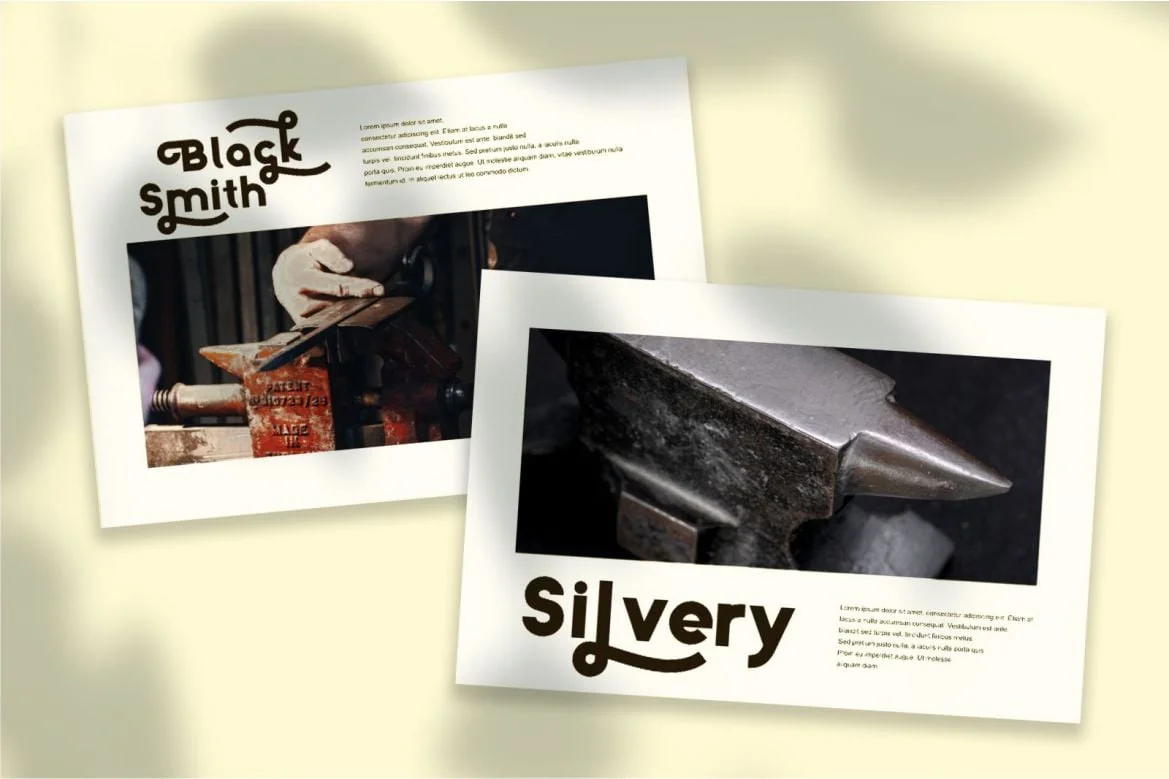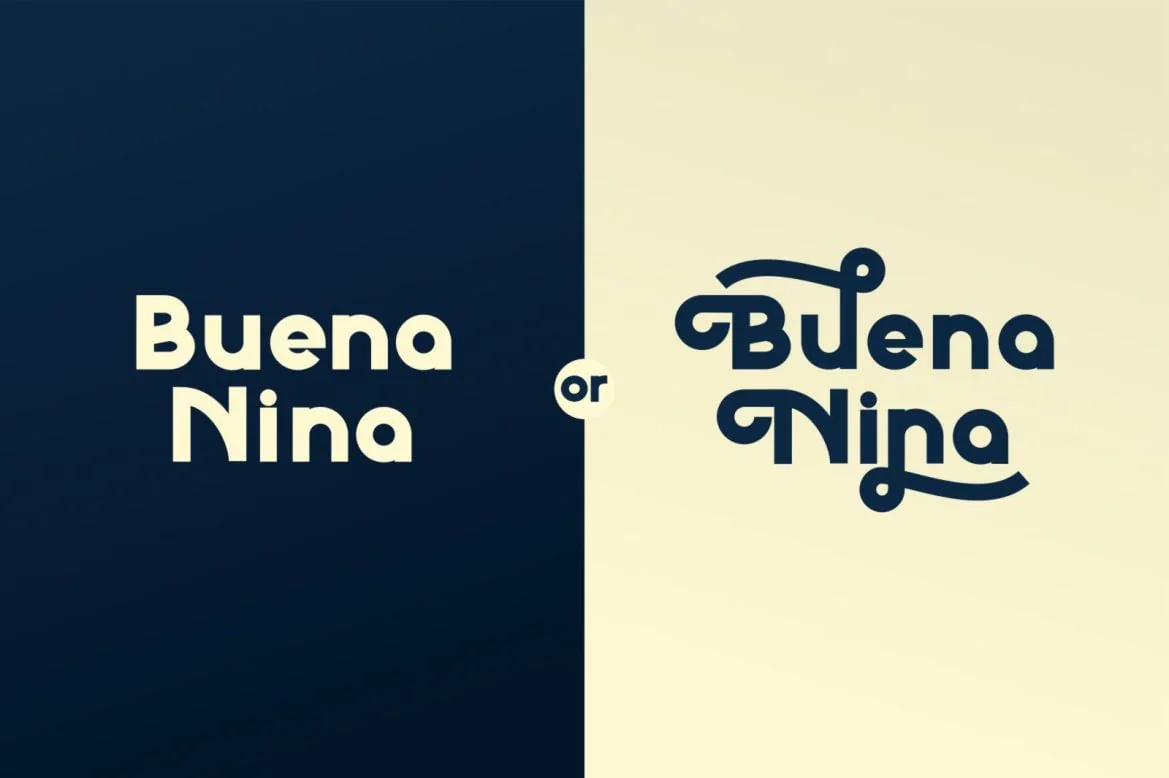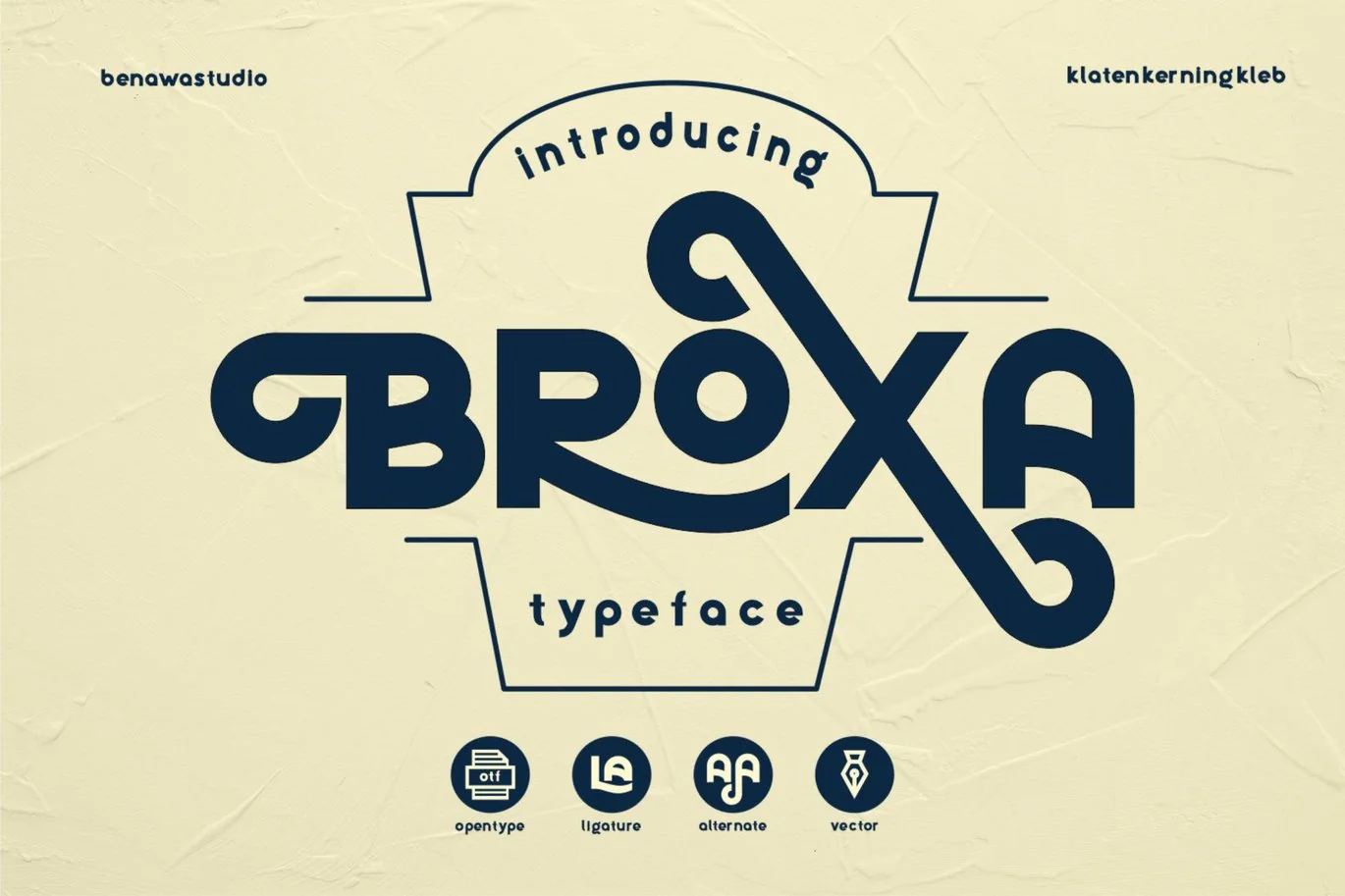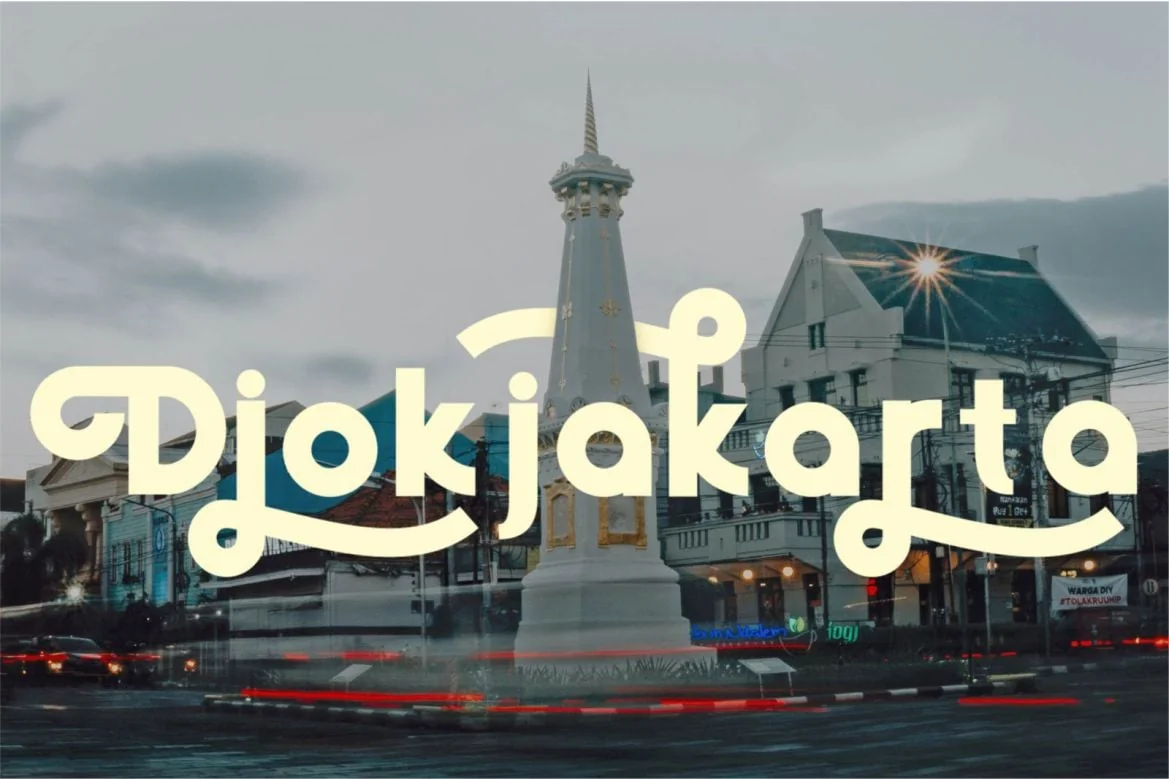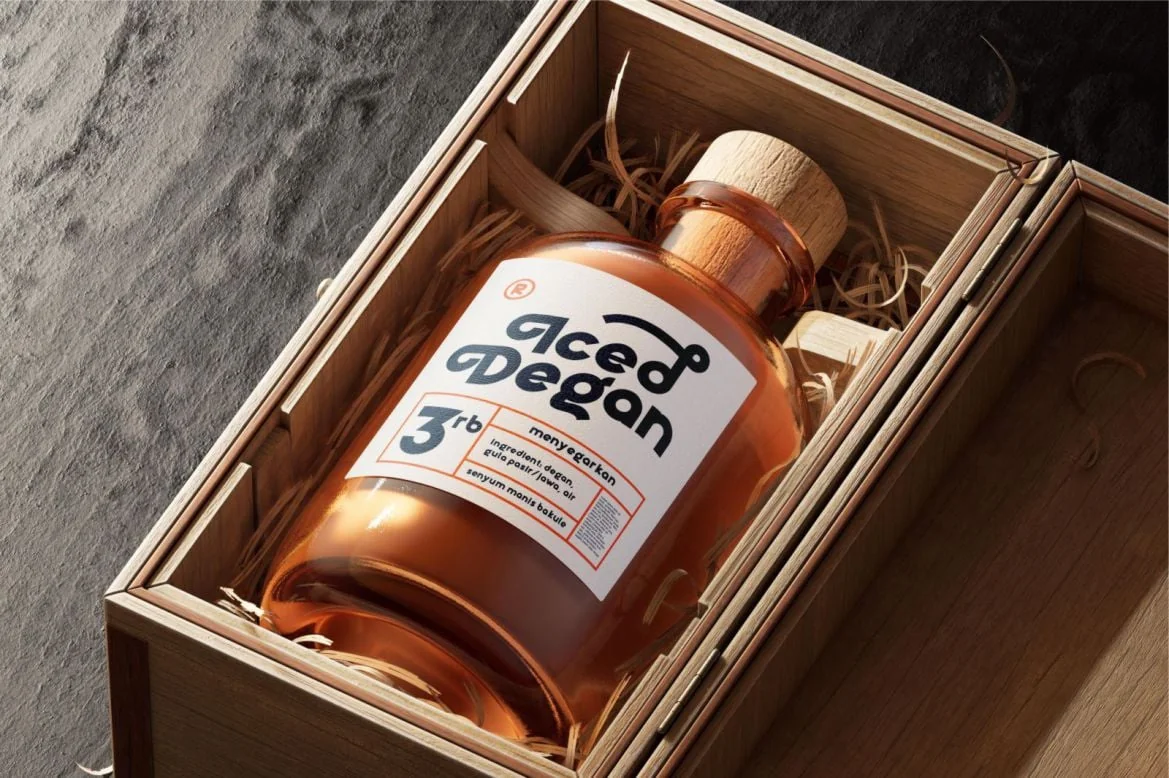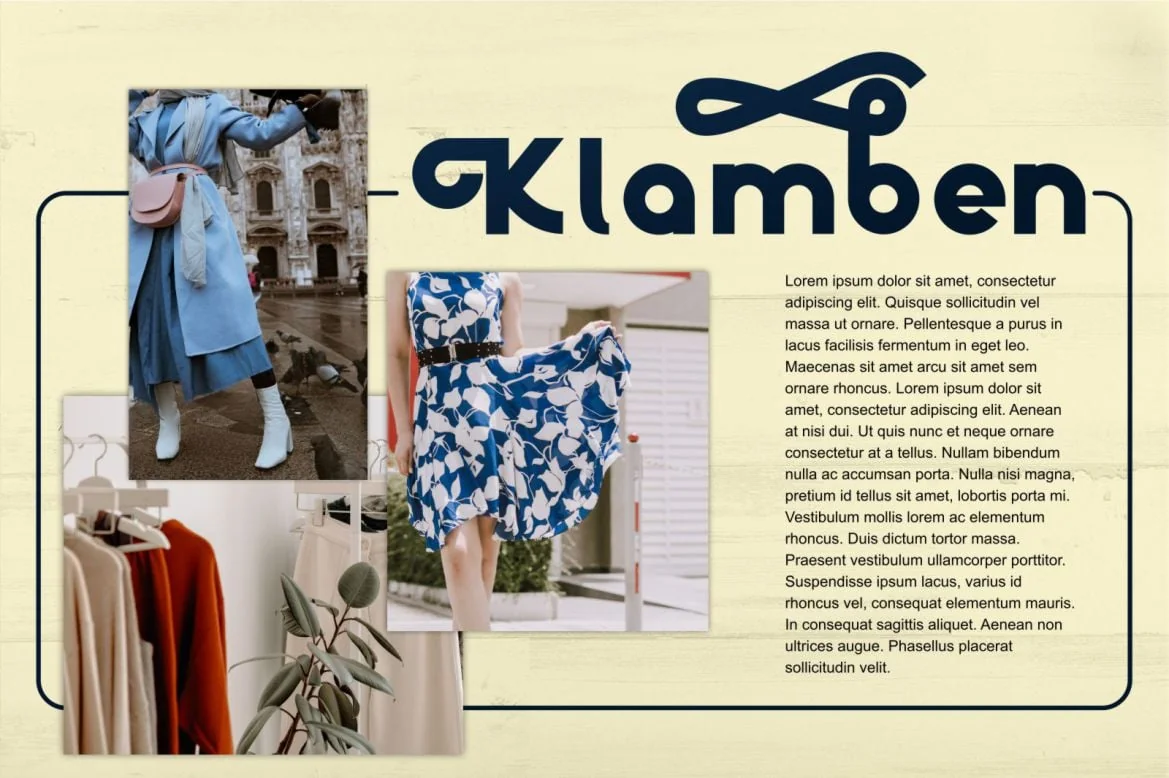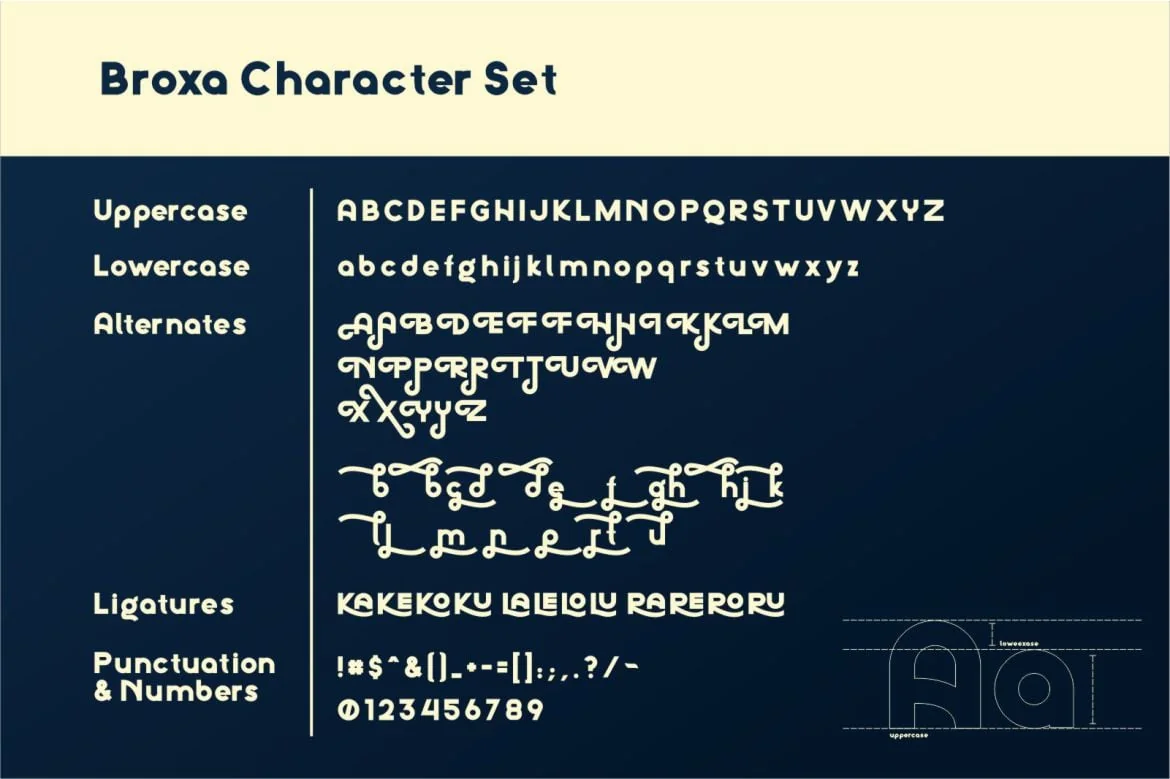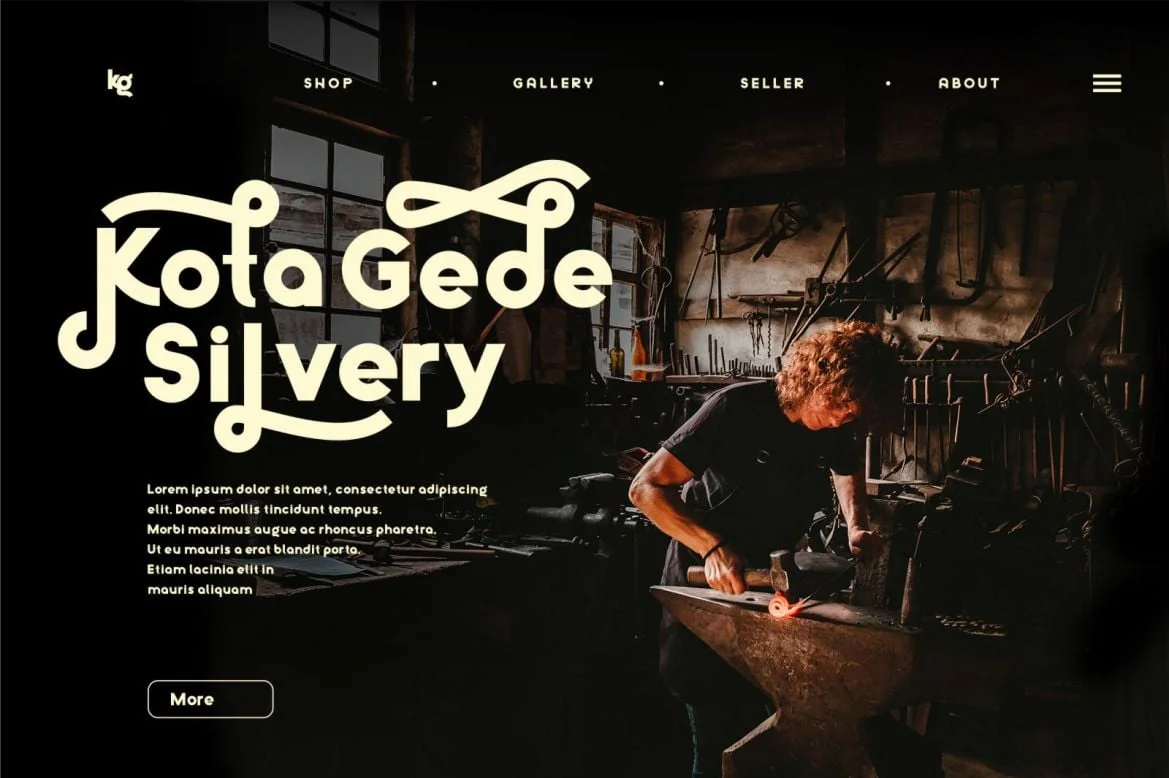
Broxa – Decorative Font
Broxa is a cool and vintage styled display font. It works incredibly well on a variety of designs, both formal and informal. This font is PUA encoded which means you can access all of the glyphs and swashes with ease!